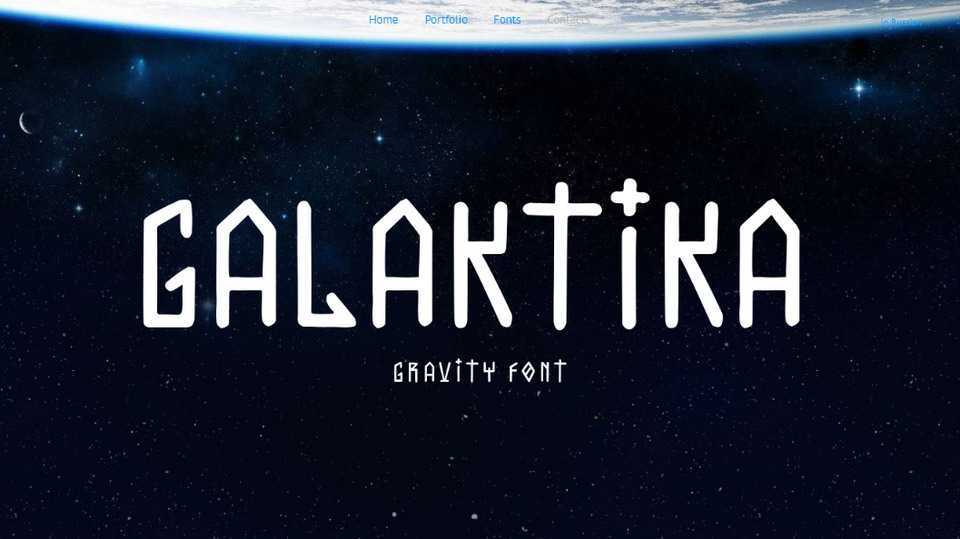
Download Galaktika font, a creative handwritten all caps typeface inspired by a space with Latin and Cyrillic languages suport. Perfect for headlines, posters, t-shirts, social media and other artworks.
Designer: Misha Panfilov